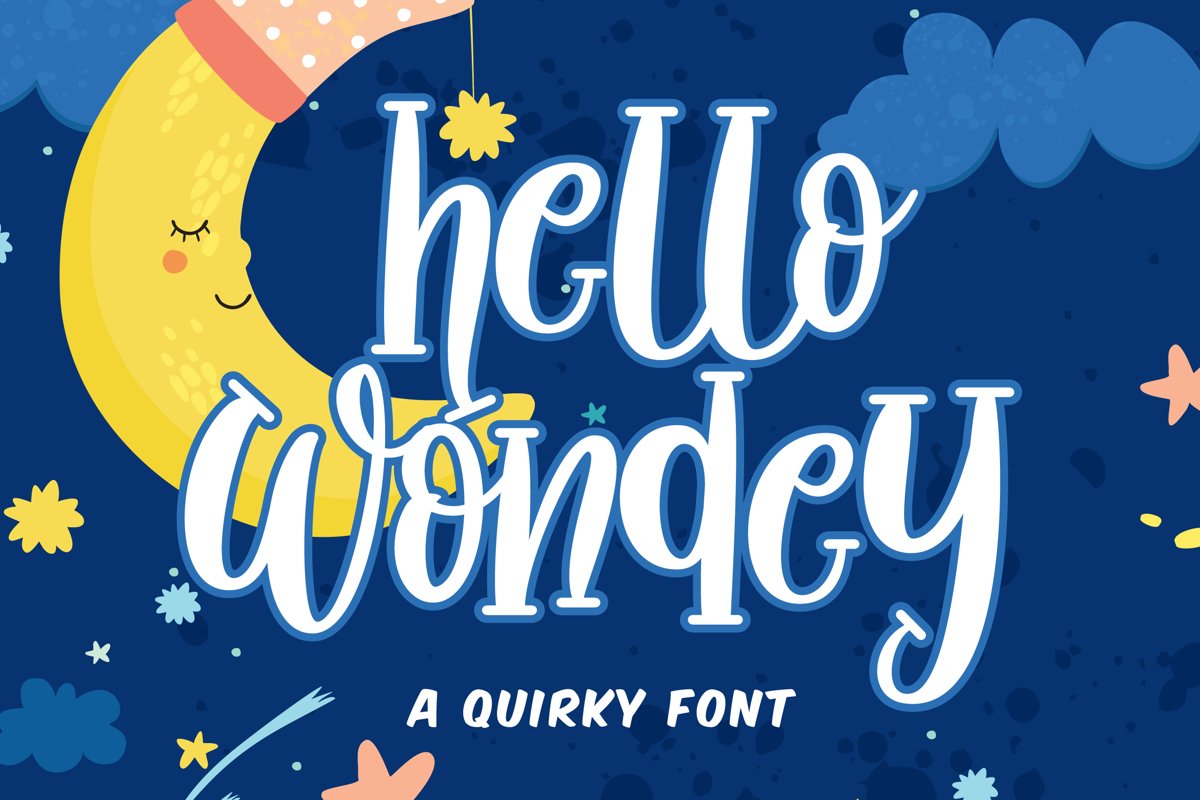
Hello Wondey
Introducing Hello Wondey . Hello Wondey is an amazing handwritten font . Made with naturally handwritten. The font will make your design more beautiful and powerful. This font is handmade and Very suitable for those of you who like handcrafted, you can use it for various design purposes. This font is suitable for any design like branding, quotes and etc. I hope you enjoy it !! Thanks for visiting and downloading my font!what’s inside :